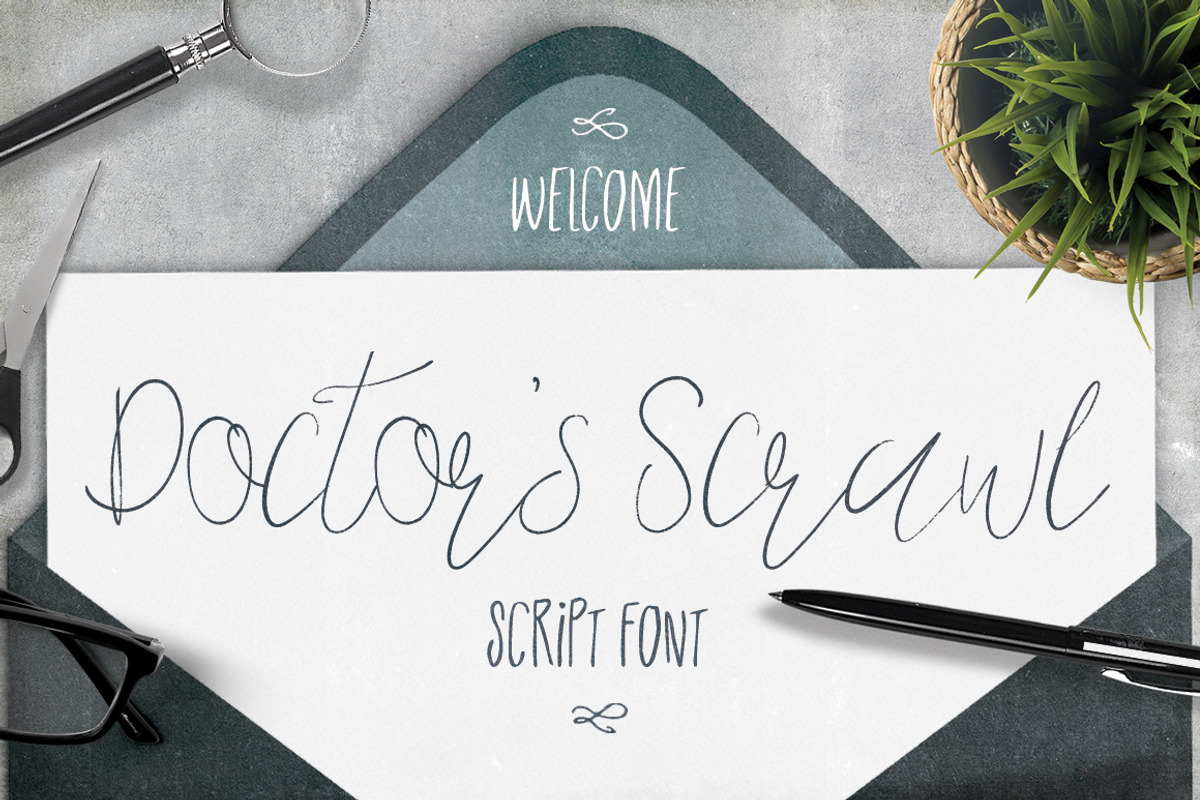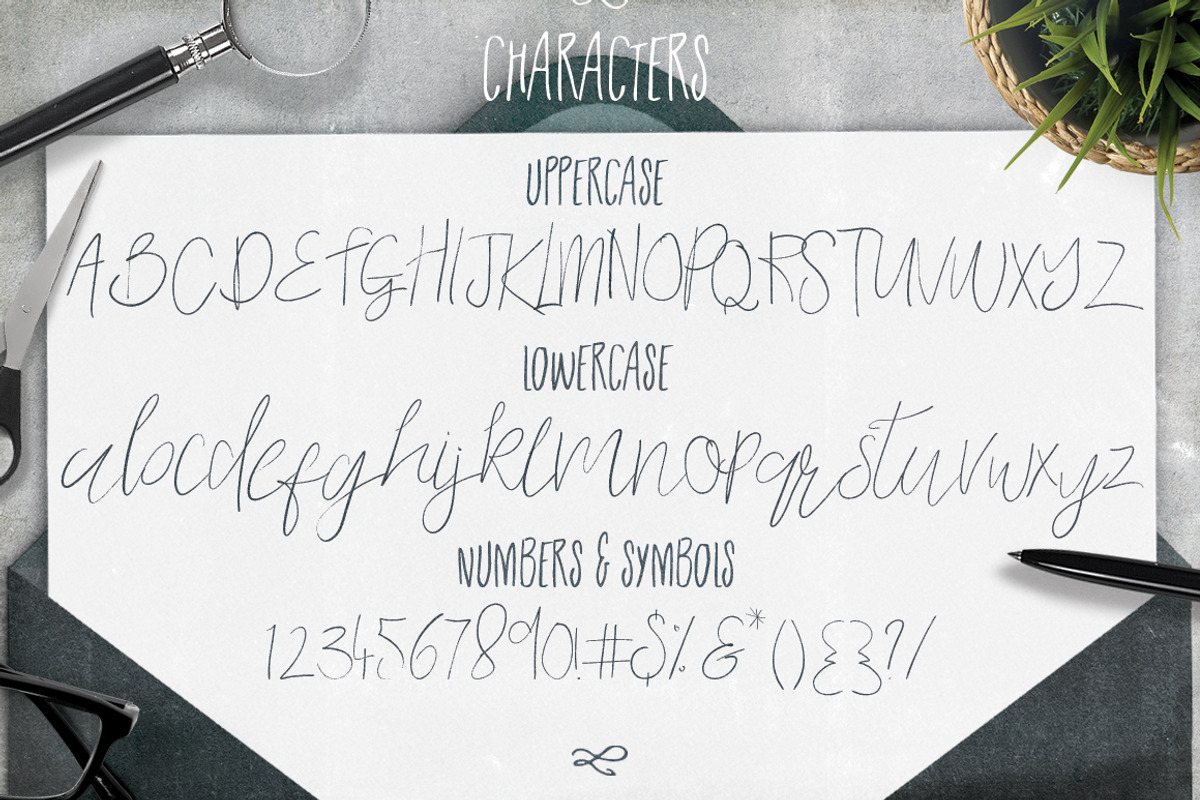
Doctors Scrawl Script Font
Doctors Scrawl Script Font by Creativeqube Design is a font selected for branding, posters, packaging, typography.
Why Doctors Scrawl Script Font is worth a look
Doctors Scrawl Script Font by Creativeqube Design fits naturally into Branding, posters, packaging, typography.